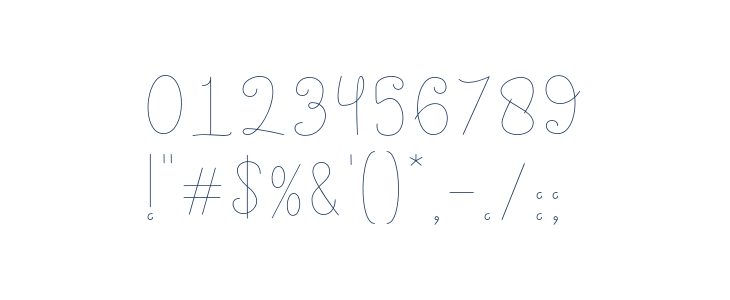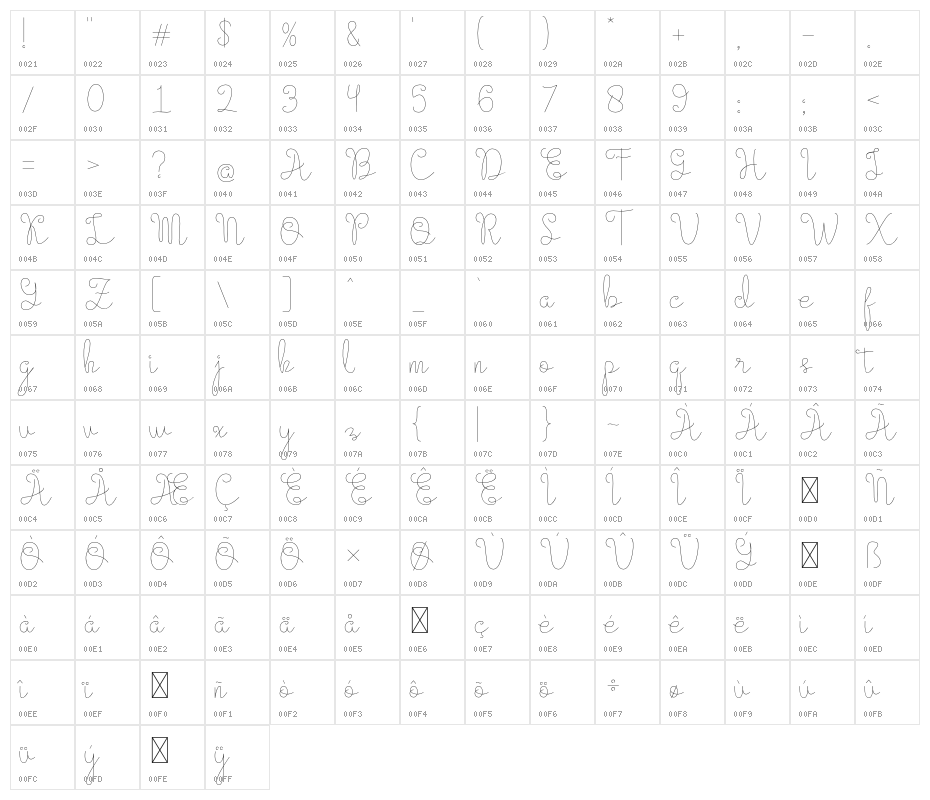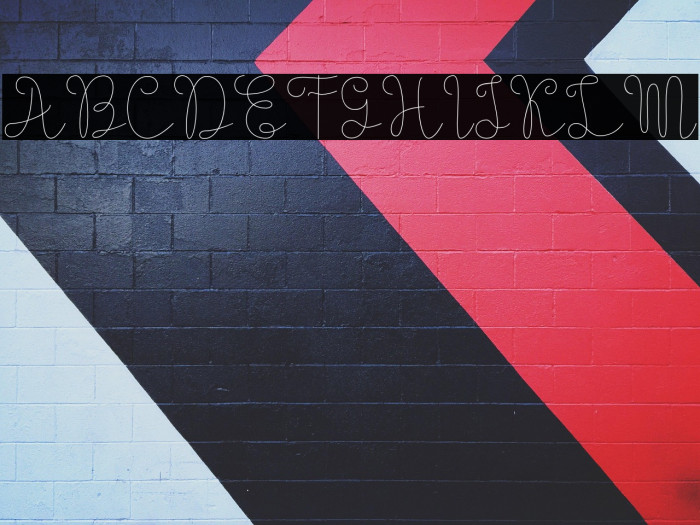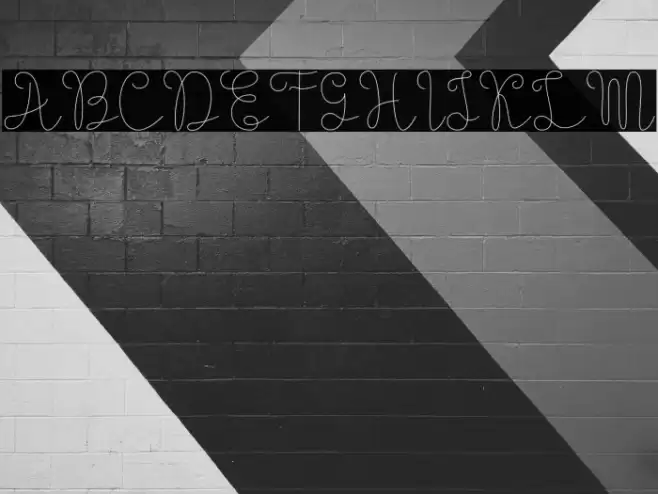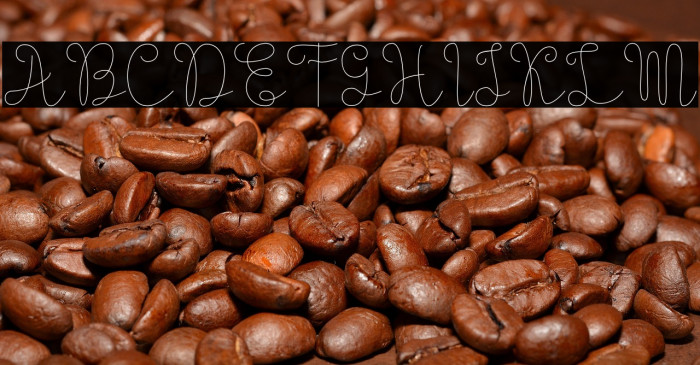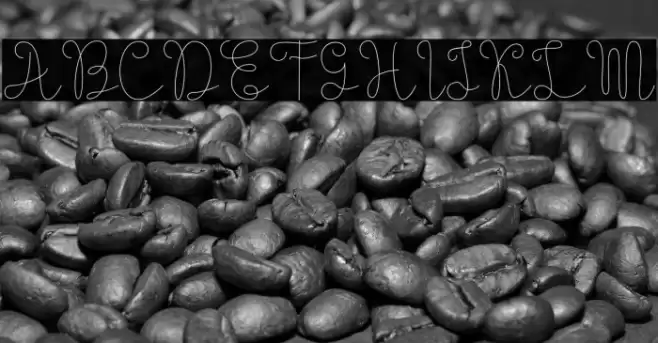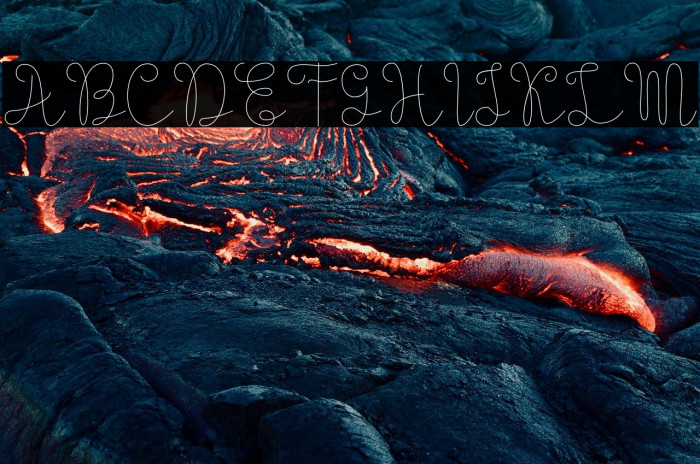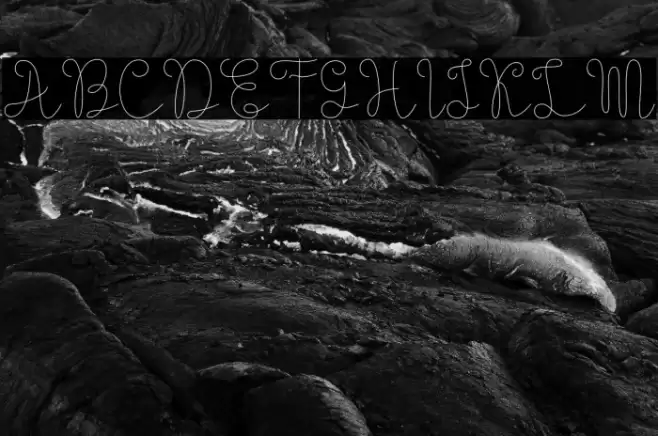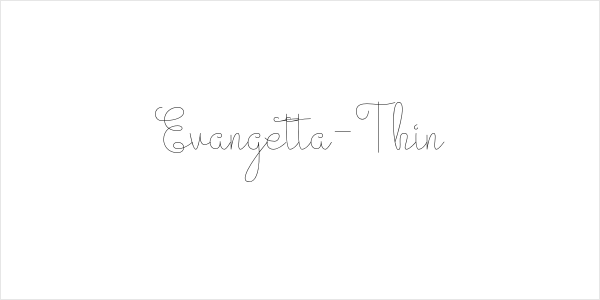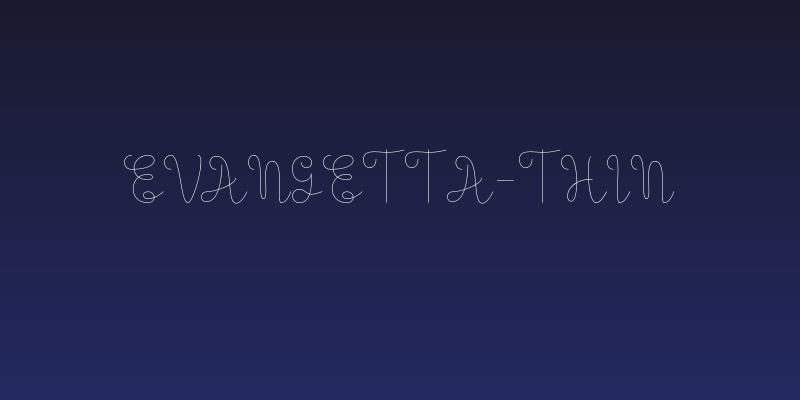
Evangetta-Thin Font
Evangetta-Thin Description
This font features a delicate and elegant script style with thin, flowing lines that create a sense of grace and sophistication. The uppercase letters are characterized by their looped and interconnected strokes, giving them a whimsical and airy appearance. The lowercase letters maintain a consistent flow, with gentle curves and smooth transitions between each character. Numbers and special characters are designed with the same thin, graceful lines, ensuring a cohesive look throughout. The overall aesthetic is light and airy, making it suitable for projects that require a touch of elegance and refinement.